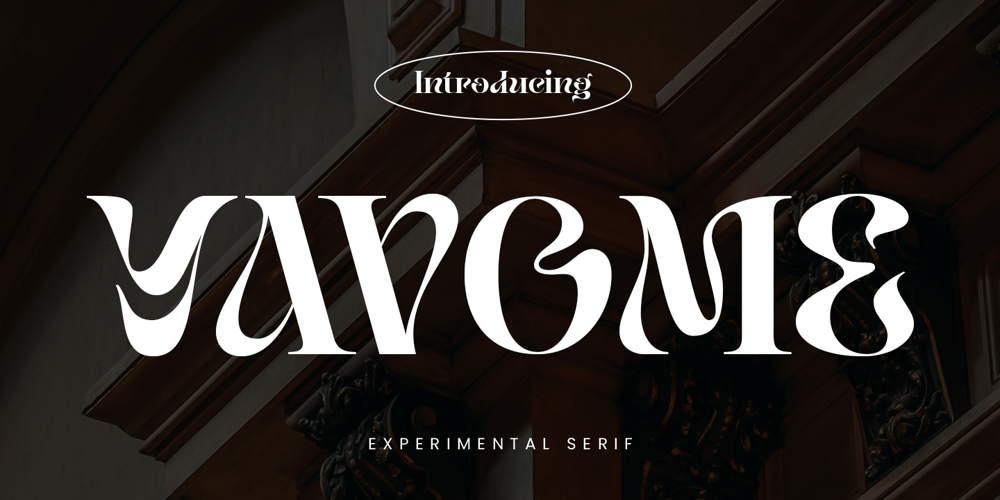
Yavome
Yavome font
Yavome Font Family was designed by Ahmad Ramzi Fahruddin and published by Arterfak Project. Yavome contains 1 styles and family package options. Spread your love with Yavome :)Yavome is a quirky Serif font, with modern experimental shapes. Designed with high contrast and artistic curves, it gives a dynamic impression and graceful movement with additional special characters!Yavome is inspired by medieval typography, developed into an elegant and unique form, making it especially suitable for use in display, branding, logos, and quotes. The font can be used on flyers, posters, stories, invitations, t-shirts, stickers, and more.What you will get: Uppercase Lowercase Numbers & punctuation Symbols Stylistic alternates Ligatures (lowercase) Accented characters. Thank you for all your support!